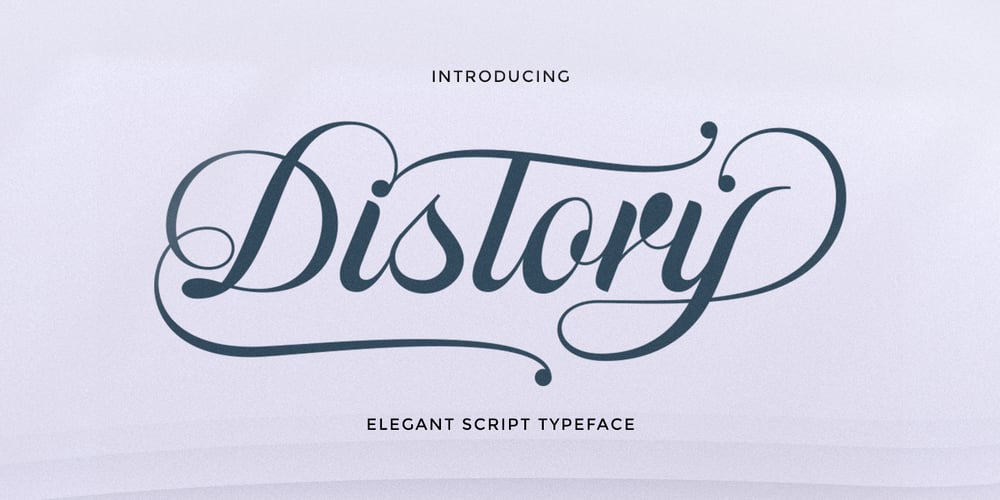
Distory Script Font Family was designed by Rizki Andika and published by Letterfreshstudio. Distory Script contains 2 styles and family package options. Distory ScriptIs a calligraphy Vintage script font that comes with beautiful alternate characters. copper plate mix calligraphy with handlettering style. Designed to convey stylish elegance. Pagoda attracts like a typeface that is smooth, clean, feminine, sensual, glamorous, simple and very easy to read.Distory Script comes with a Clean and Aged version, beautiful upper and lower case, binding and loved by many finishes. It has Multilingual support (Western European characters) and works with the following languages: English, Danish, Dutch, Estonian, Finnish, French, German, Hungarian, Icelandic, Italian, Norwegian, Polish, Portuguese, Spanish, Swedish.In my example I show how this script can be used. It’s perfect for logos, wedding invitations, alcohol labels, romantic cards, and more.Thanks You.